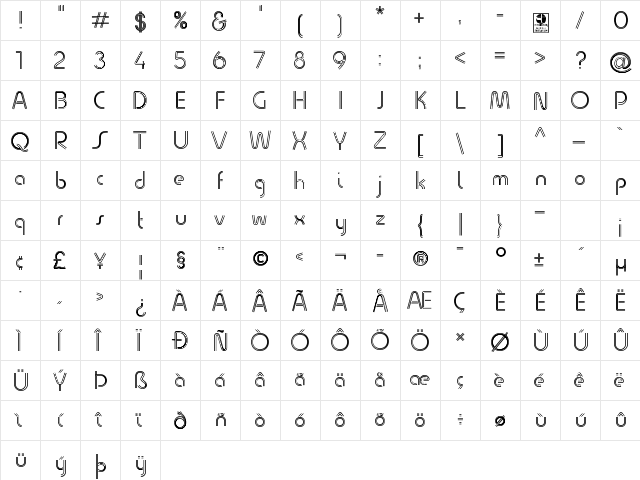
Quesat Striped Demo Regular
| Foundry | StudioTypo |
| Designer | Mehmet Abac |
Design Context for Quesat Striped Demo Typeface
Quesat Striped Demo is a composed and adaptable typeface that performs quietly and consistently across a wide range of design contexts.